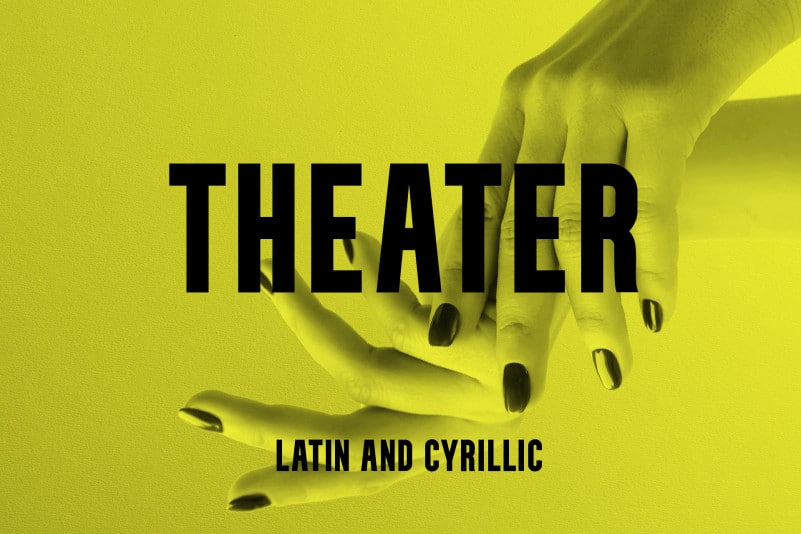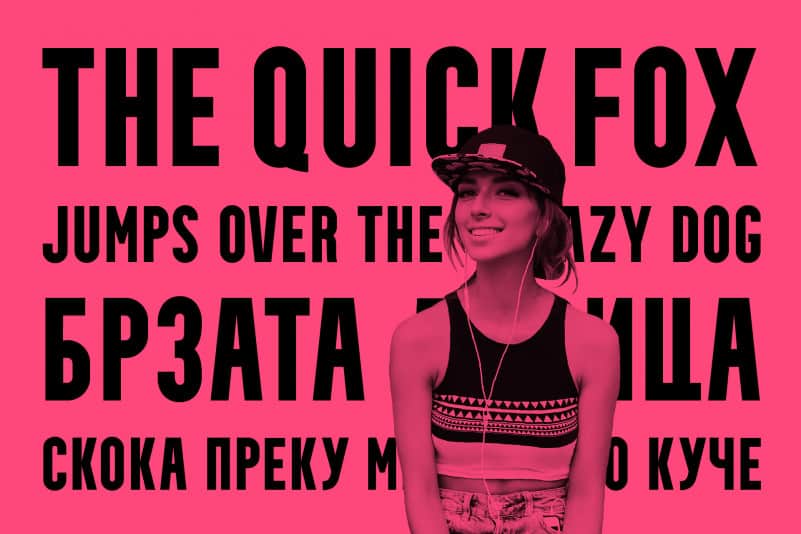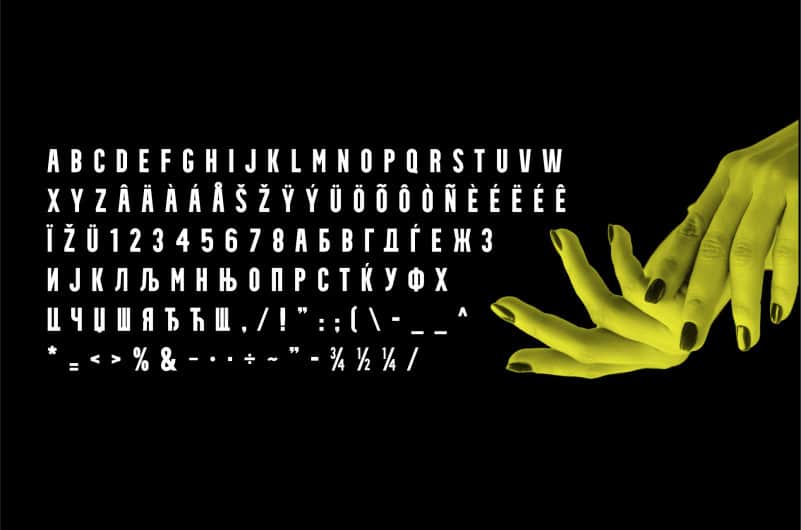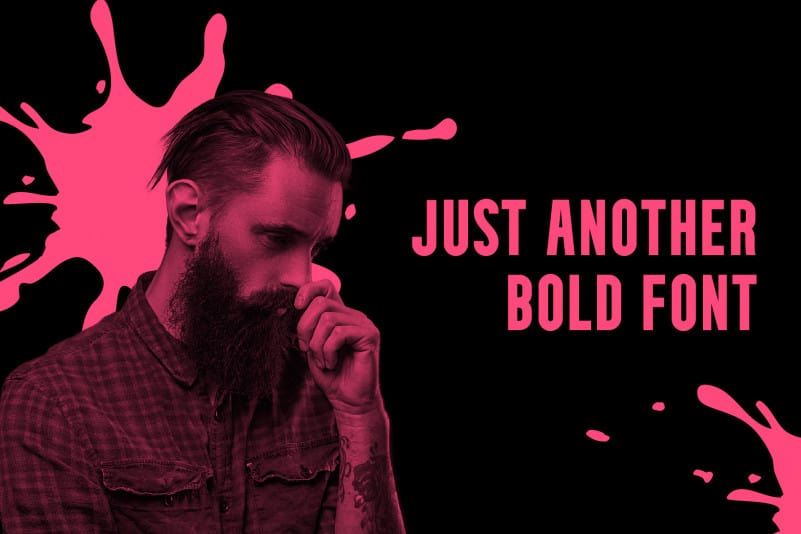
Theater Sans Serif Font
Theater Sans Serif Font is a fully free font designed to cover condensed bold letters in digital and poster design for the Cyrillic languages. It is created by Adrian Jordanov and  it should work for most Cyrillic and Latin languages